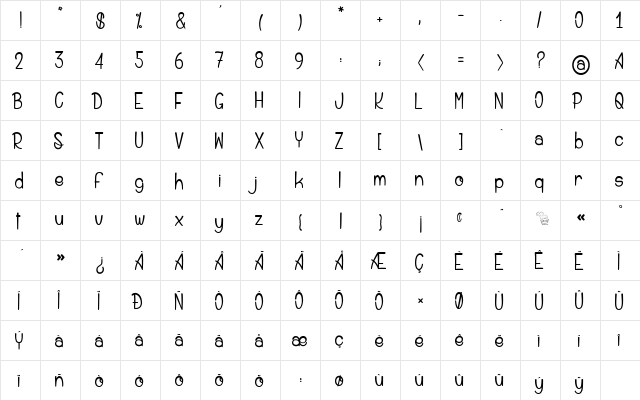
Saint Andrew des Kiwis Regular
| Designer | dcoxy Medina Gregory |
Design Context for Saint Andrew des Kiwis Typeface
Saint Andrew des Kiwis takes a measured approach to typography — its balanced proportions and neutral character make it a reliable workhorse for both digital and print work.